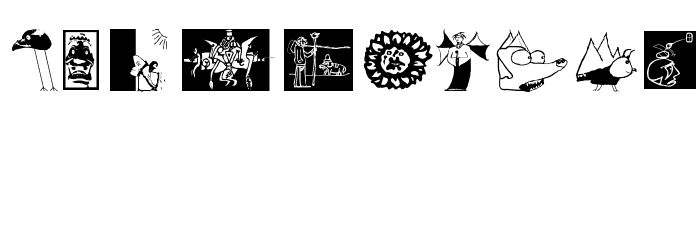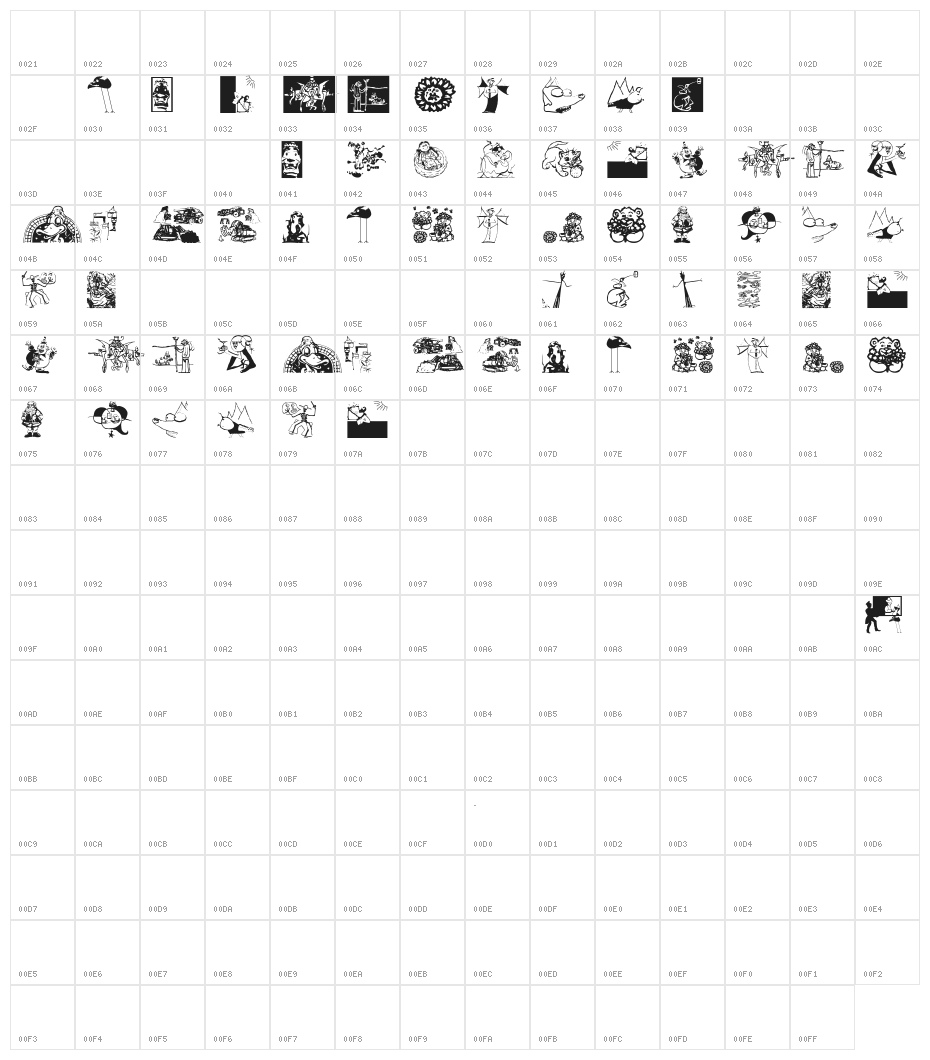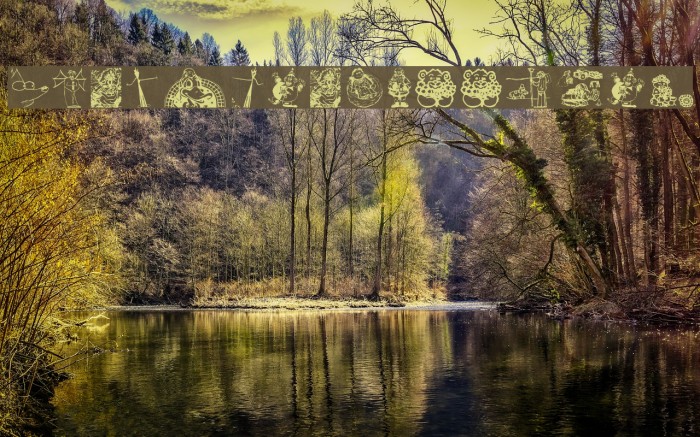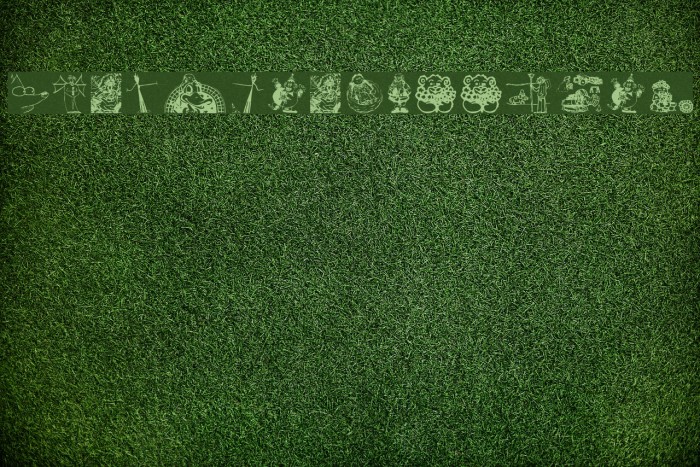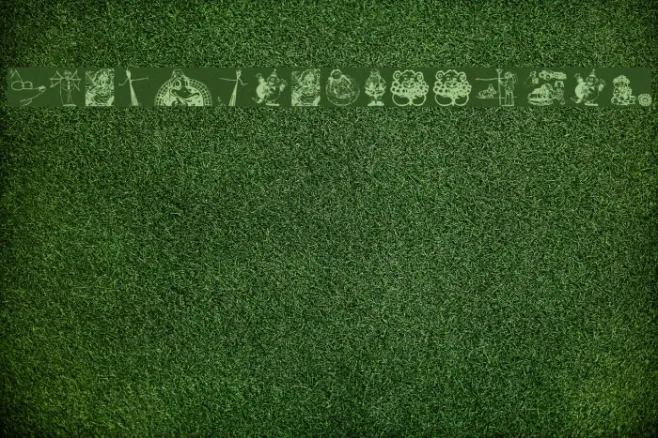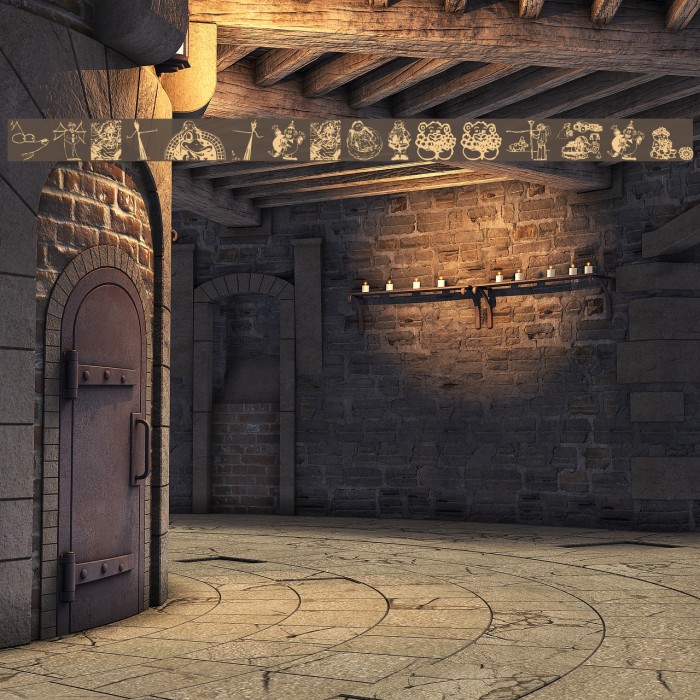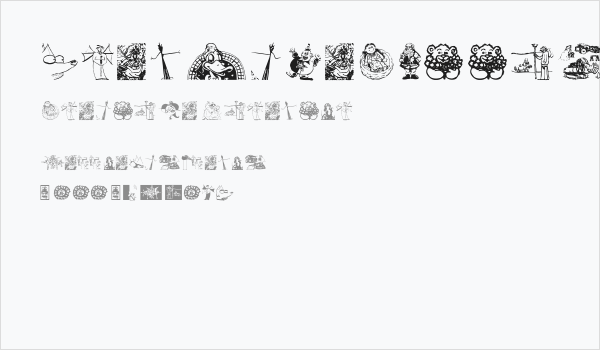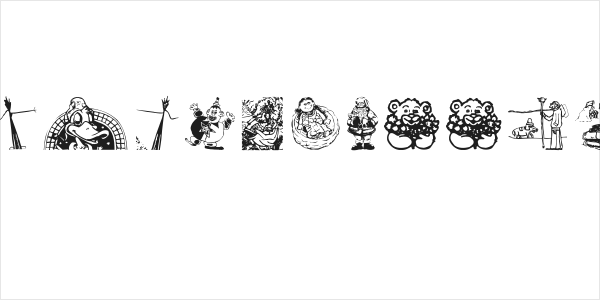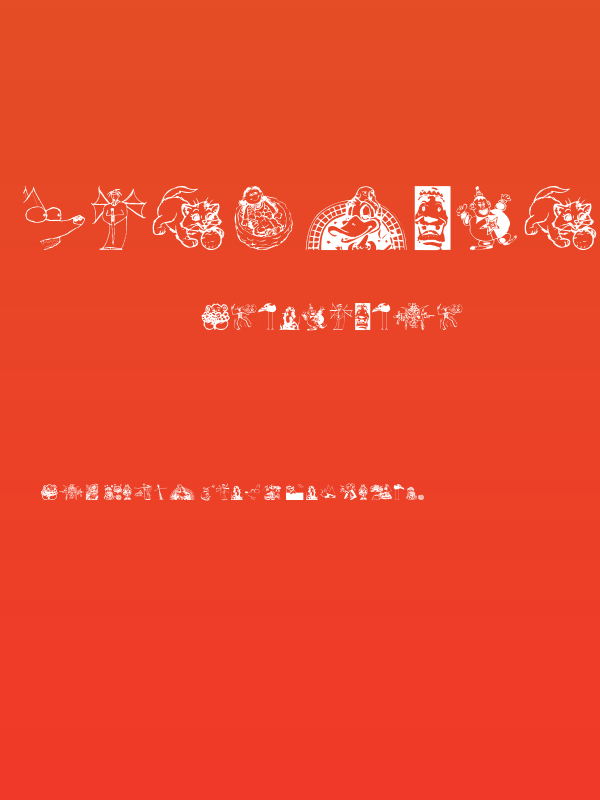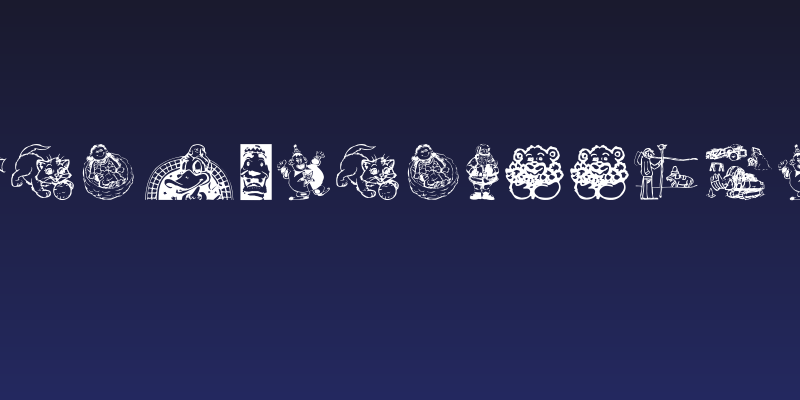
WreckageCuttings Font
WreckageCuttings Description
A highly decorative and illustrative font composed of unique, whimsical cartoon-like drawings for each character, featuring a mix of abstract, surreal, and playful imagery. The glyphs are complex and visually dense, with each letter and symbol represented by a distinct illustration rather than traditional typographic forms.
| Overall Style | Decorative, Whimsical, Artistic |
| Use Case | Logos, Posters, Art projects, Headlines |
| Proposed Projects | ChildrenΓ’β¬β’s books, posters, album covers, creative branding, art projects, zines, and editorial illustrations. |